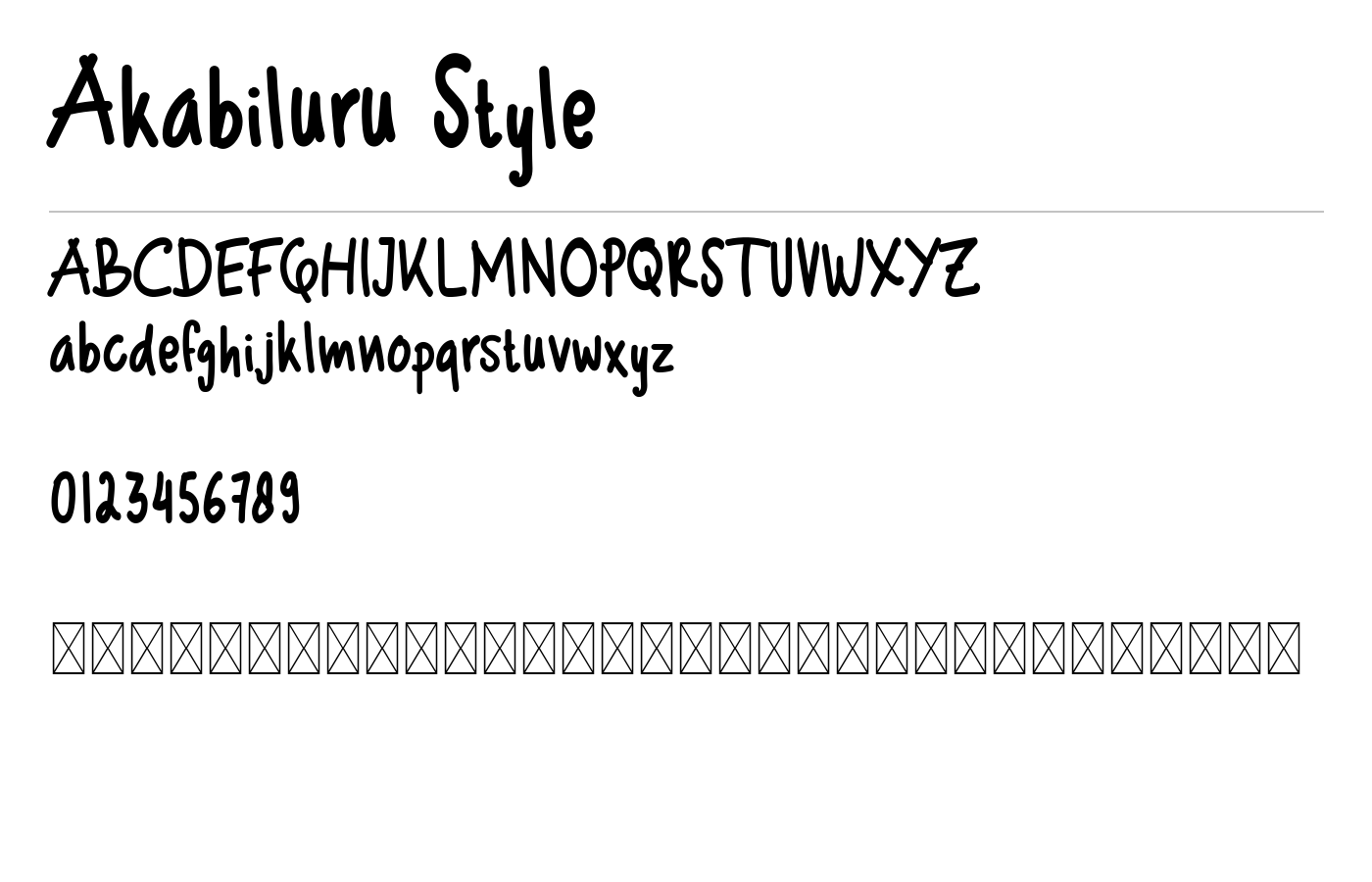
Akabiluru Style is a playful, hand-drawn sans serif font with a casual and friendly vibe. Its irregular, slightly tall letterforms and rounded edges give it an approachable, informal feel, making it ideal for creative projects, children’s materials, and fun branding. This font works well in headlines, logos, or any design seeking warmth and personality.
Akabiluru Style Font
About Akabiluru Style Font